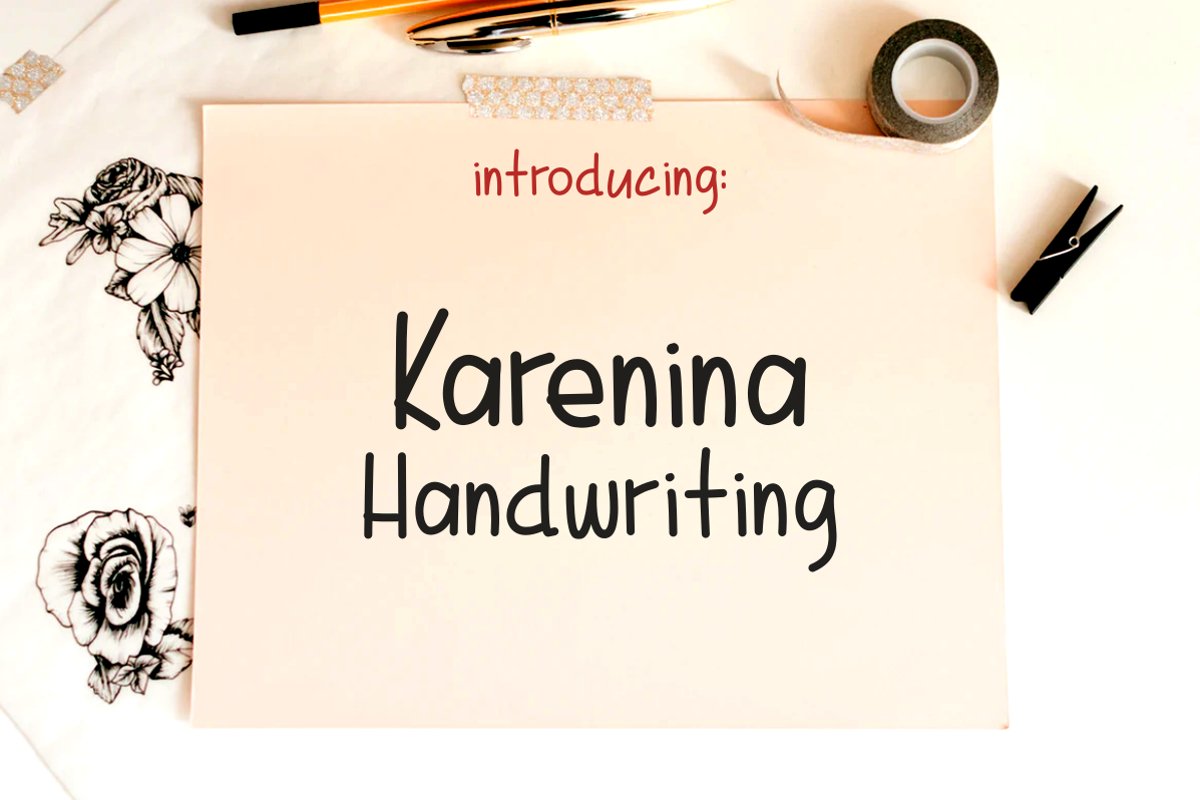
Karenina Handwriting
Karenina Handwriting font is a quirky and fun, natural-looking handwriting font. Feel free to play around with this font to match with you design projects.